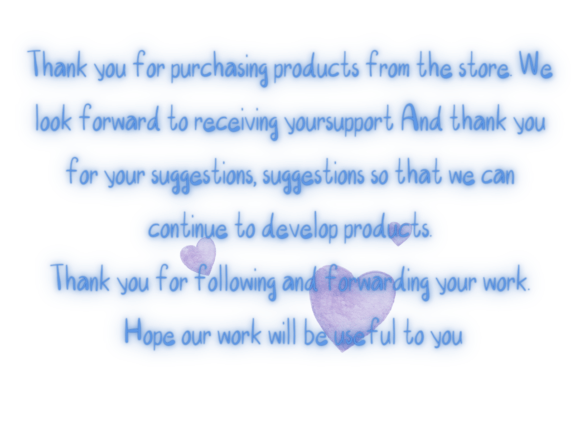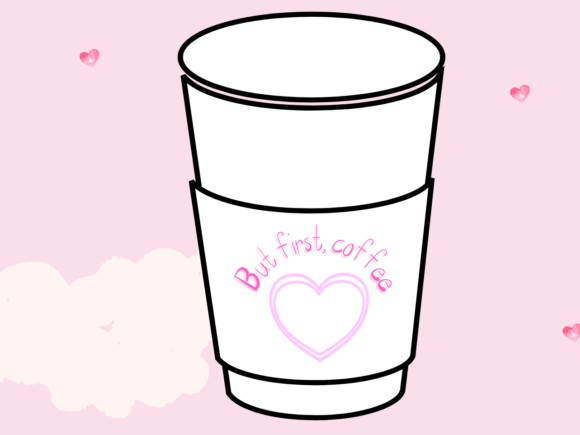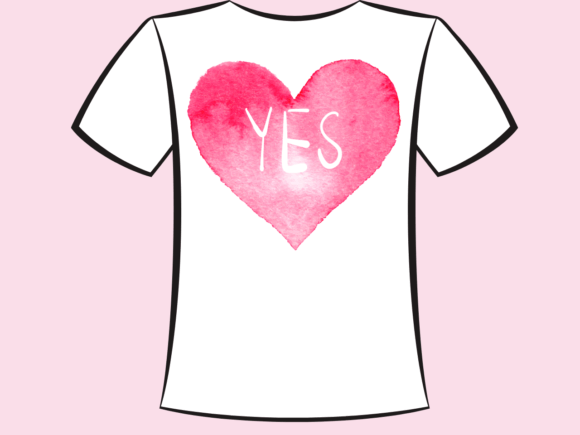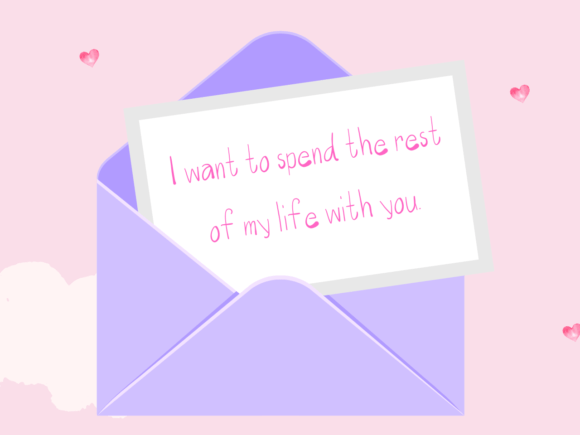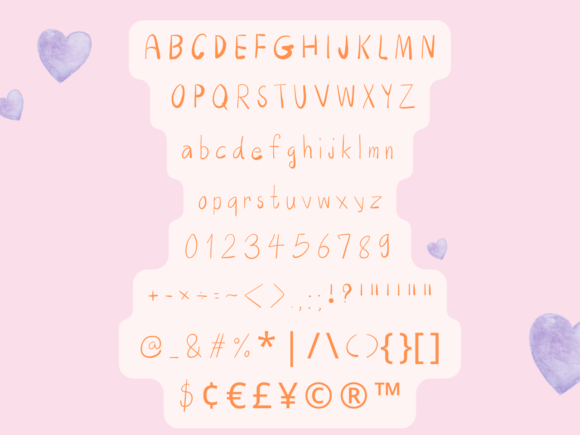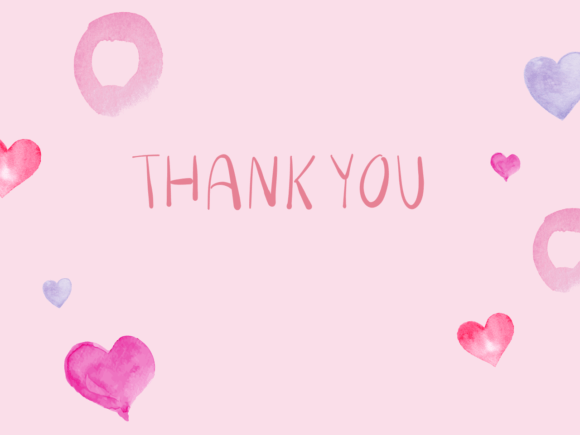
Discover the Charm of Cayla Font: A Handwritten Gem for Creative Projects
A Personal Review of Cayla Font
What I Love About Cayla Font
- ✨ Beautifully crafted handwritten style: Cayla Font boasts a unique, hand-written feel that’s perfect for adding a personal touch to cards, social media posts, and more.
- ✅ Highly versatile: Whether you’re working on a DIY project, a client’s branding, or simply want to elevate your social media aesthetic, Cayla Font adapts seamlessly.
- 💫 Elegant yet playful: The font strikes the perfect balance between sophistication and whimsy, making it suitable for a wide range of creative applications.
While Cayla Font is incredibly versatile, there are a few things to keep in mind:
- ⚠️ Legibility at small sizes: Like many handwritten fonts, Cayla may lose some legibility when used at very small sizes. It’s best used at 14px or larger for optimal readability.
- 🤔 Overuse of stylistic alternates: With a range of beautiful stylistic alternates, it’s easy to get carried away. Balance is key to maintaining a cohesive look.
The Story Behind Cayla Font
Cayla Font was inspired by the beauty of handwritten notes and letters. Its creator aimed to capture the essence of personal, heartfelt communication in a digital format. The result is a font that feels both intimate and sophisticated, perfect for bringing a touch of warmth to any project.
| What type of projects is Cayla Font best suited for? | Cayla Font is incredibly versatile and can be used for a variety of projects including handmade cards, social media graphics, branding materials, and more. |
| Does Cayla Font support OpenType features? | Yes, Cayla Font supports OpenType features, allowing you to access a range of stylistic alternates and glyphs to enhance your typography. |
Cayla Font is more than just a beautiful handwritten font – it’s a tool to bring your creative projects to life. With its elegant yet playful style, versatility, and range of OpenType features, it’s an excellent addition to any designer’s toolkit. Whether you’re crafting a handmade card, designing social media content, or working on a client’s branding, Cayla Font is sure to make your projects stand out.